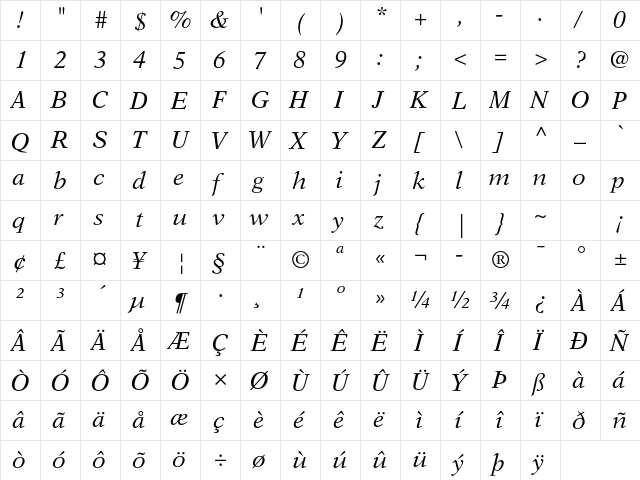
New Aster LT Std Italic
| Designer | Francesco Simoncini |
Design Context for New Aster LT Std Typeface
New Aster LT Std offers clean, dependable letterforms without strong stylistic allegiance, making it a practical choice for designers who need flexibility. The slanted form adds forward momentum and visual energy. The delicate stroke weight brings airiness and refinement to layouts.
Pro Tip: Use New Aster LT Std for emphasis, pull quotes, and subheadings where its slanted energy can add rhythm to the layout.